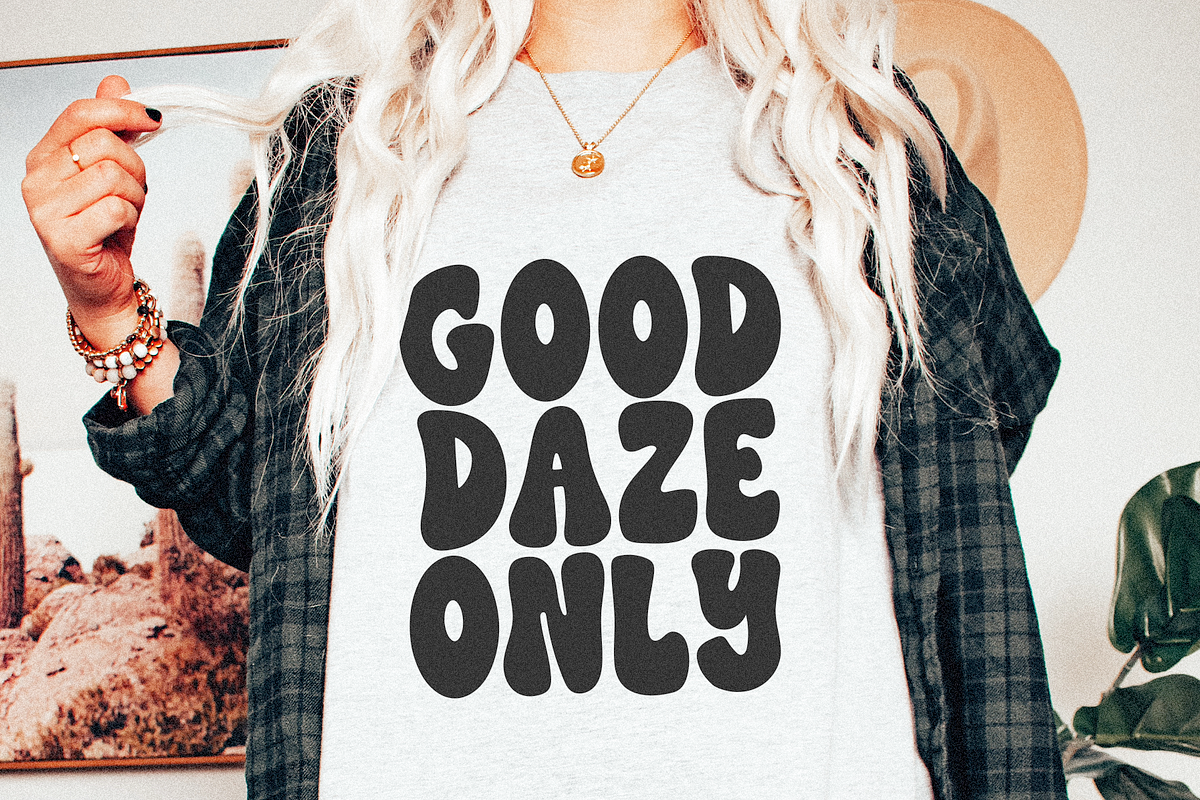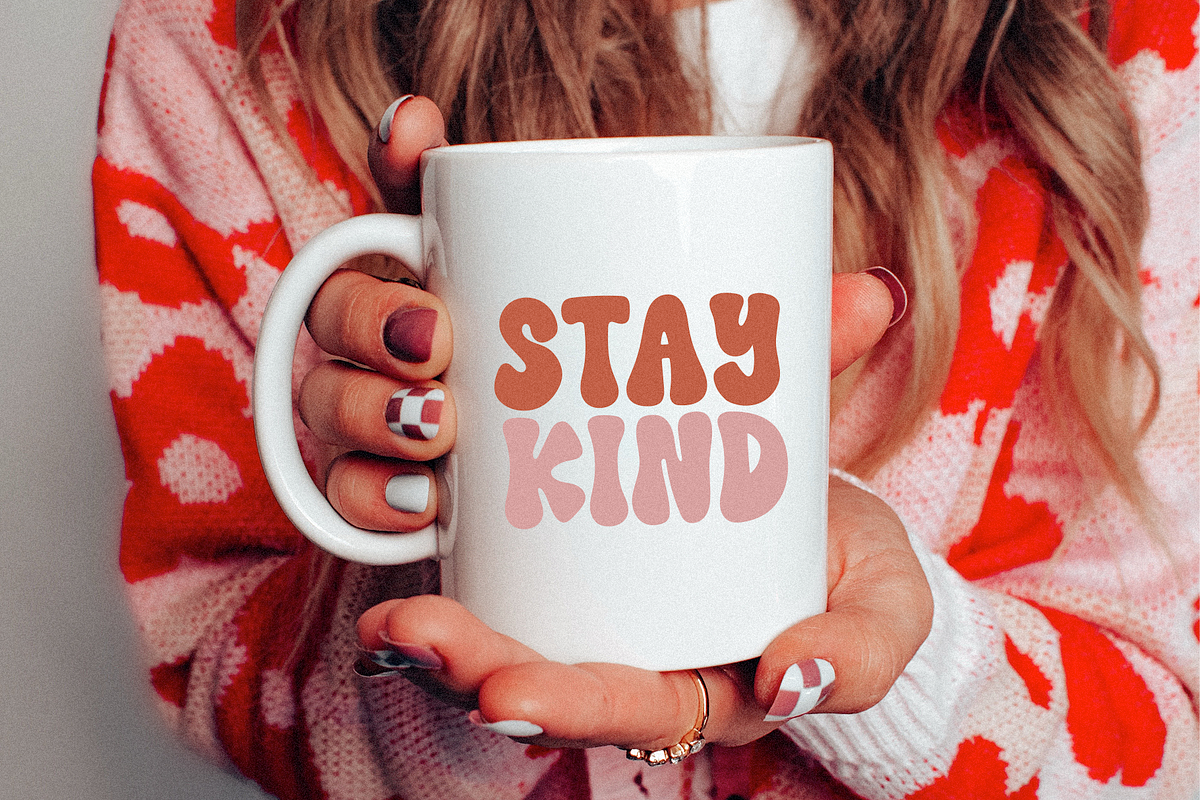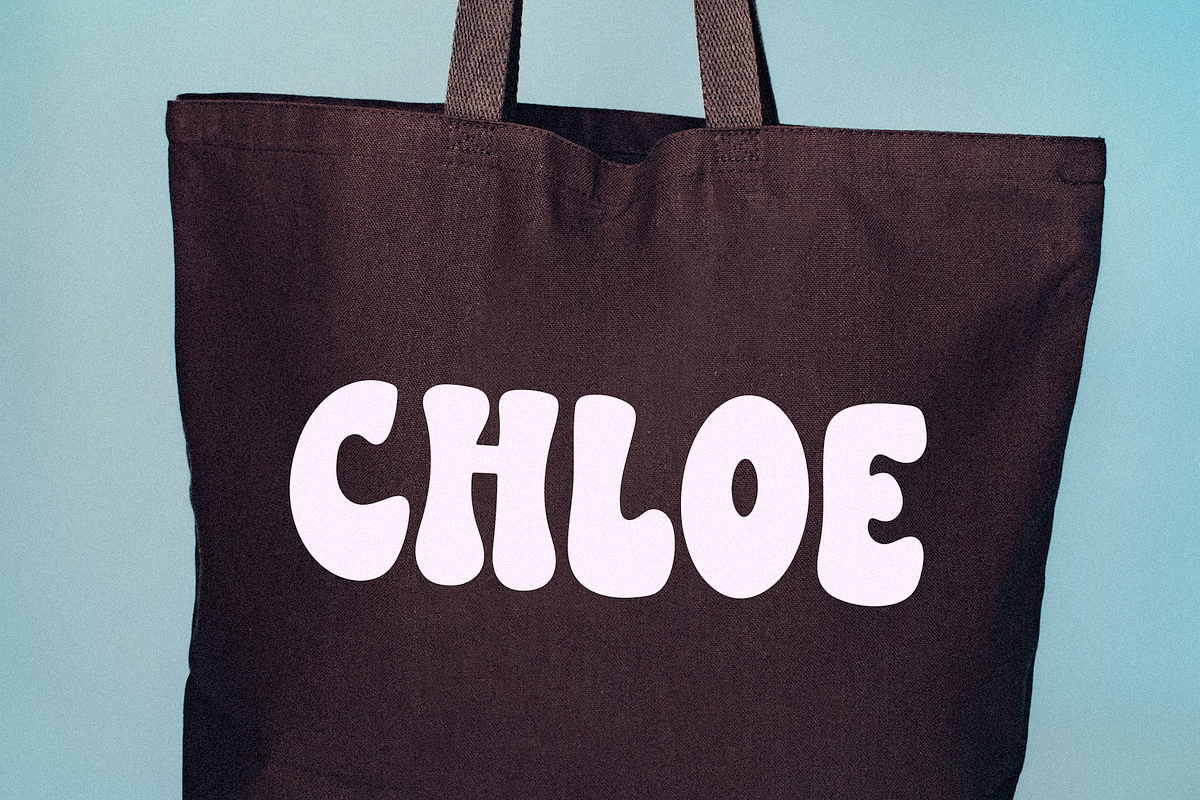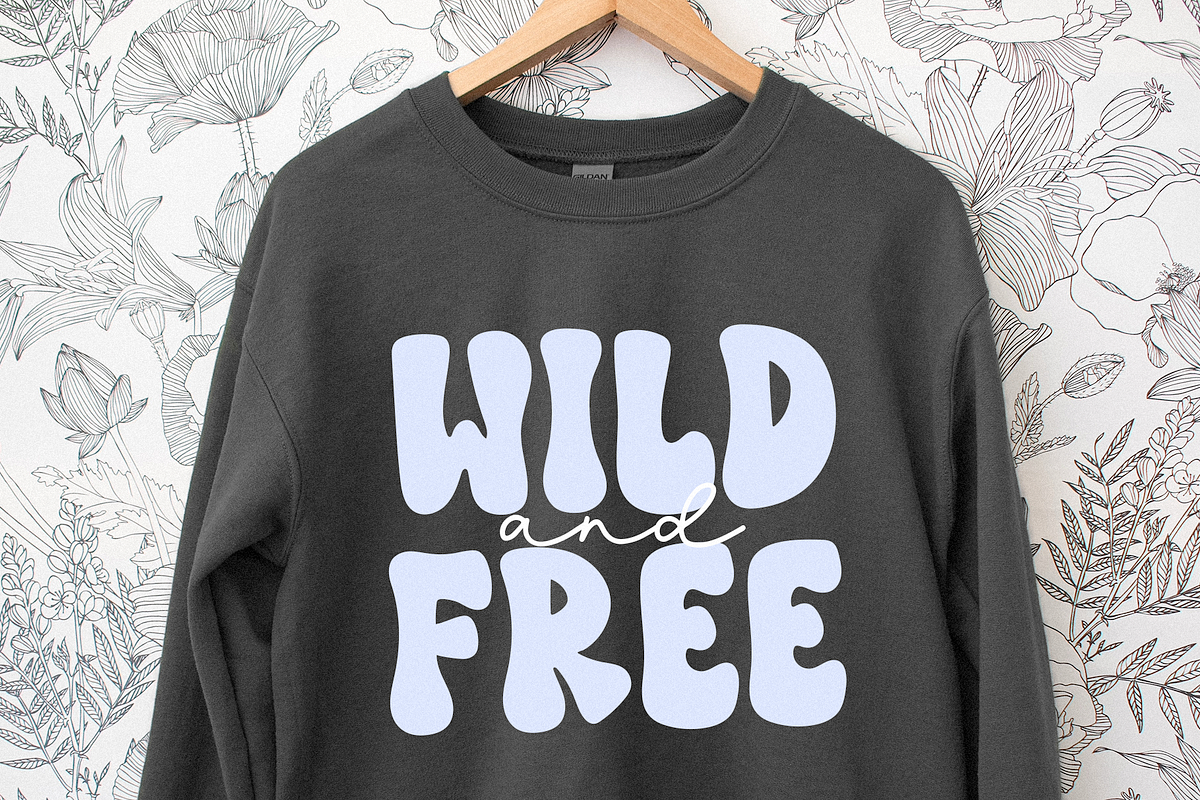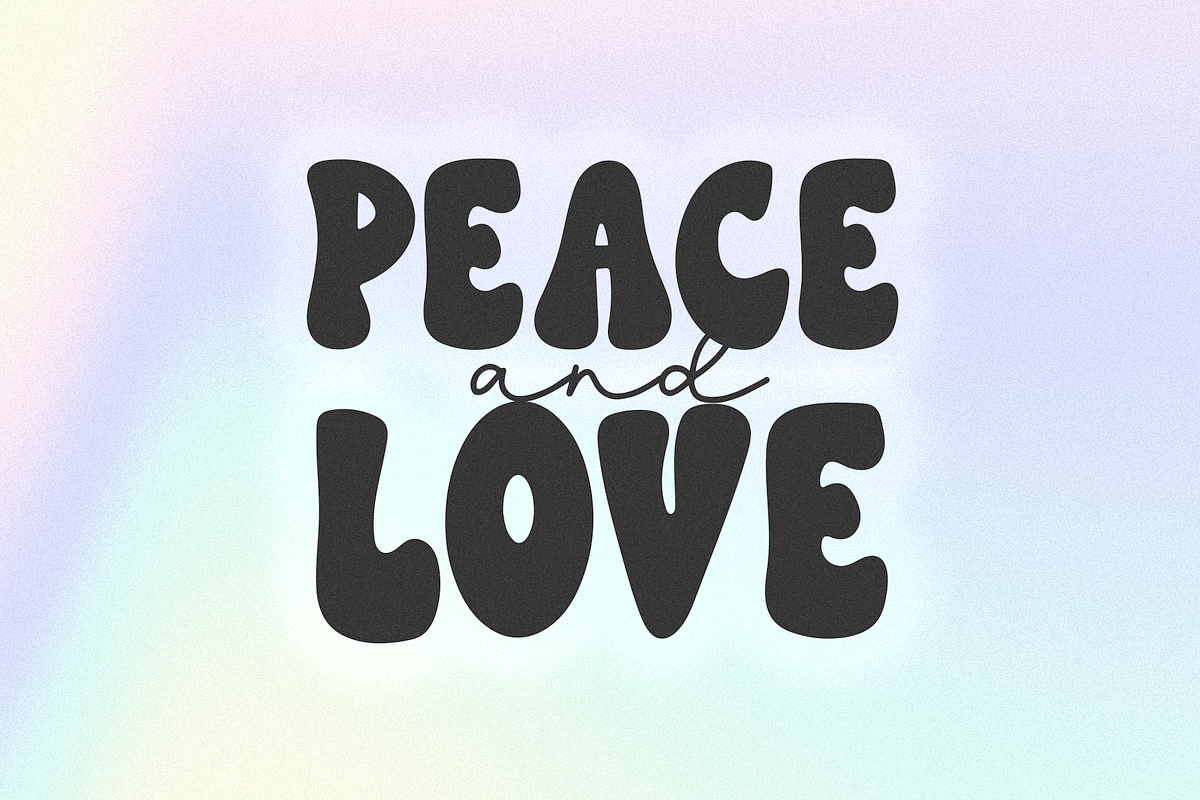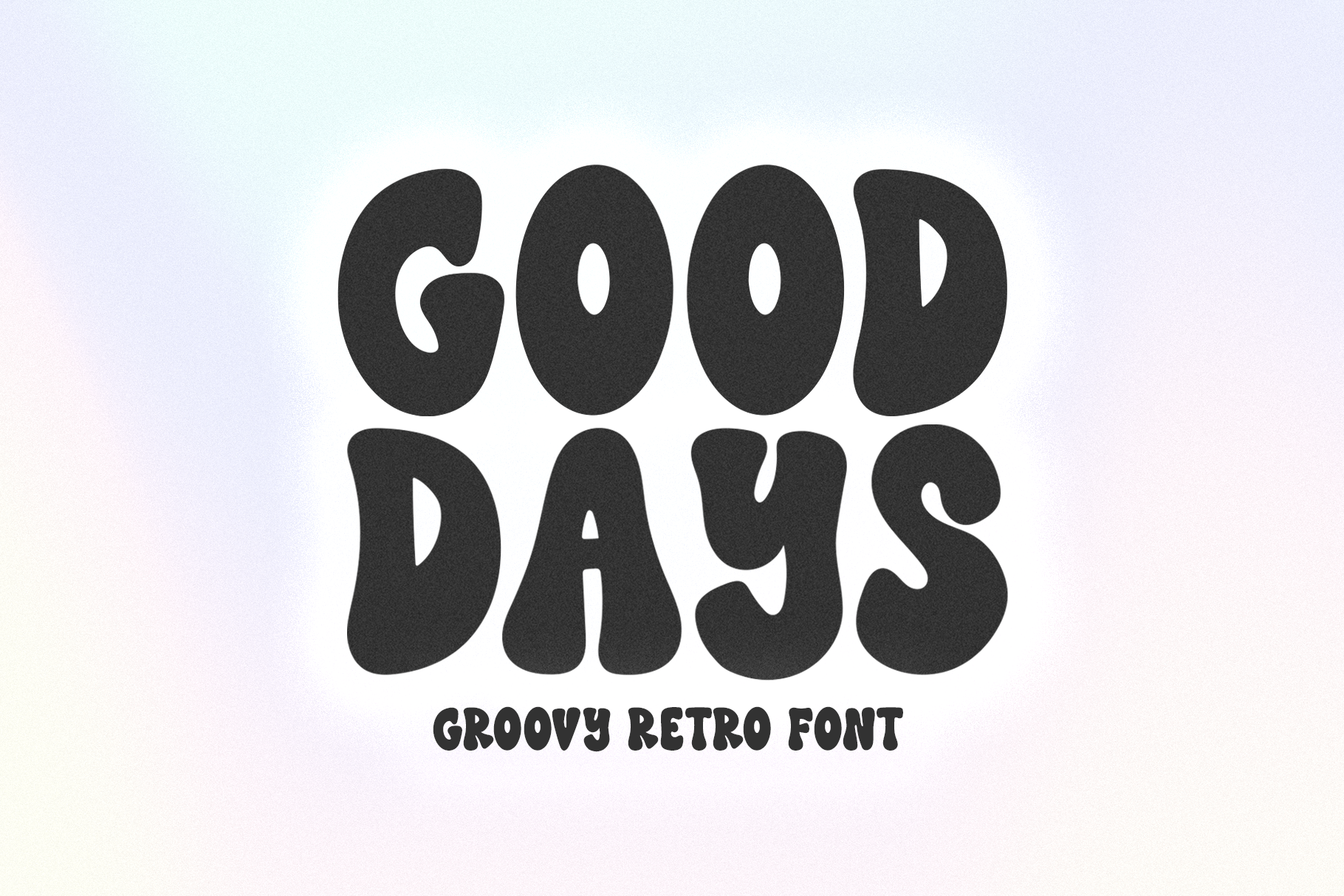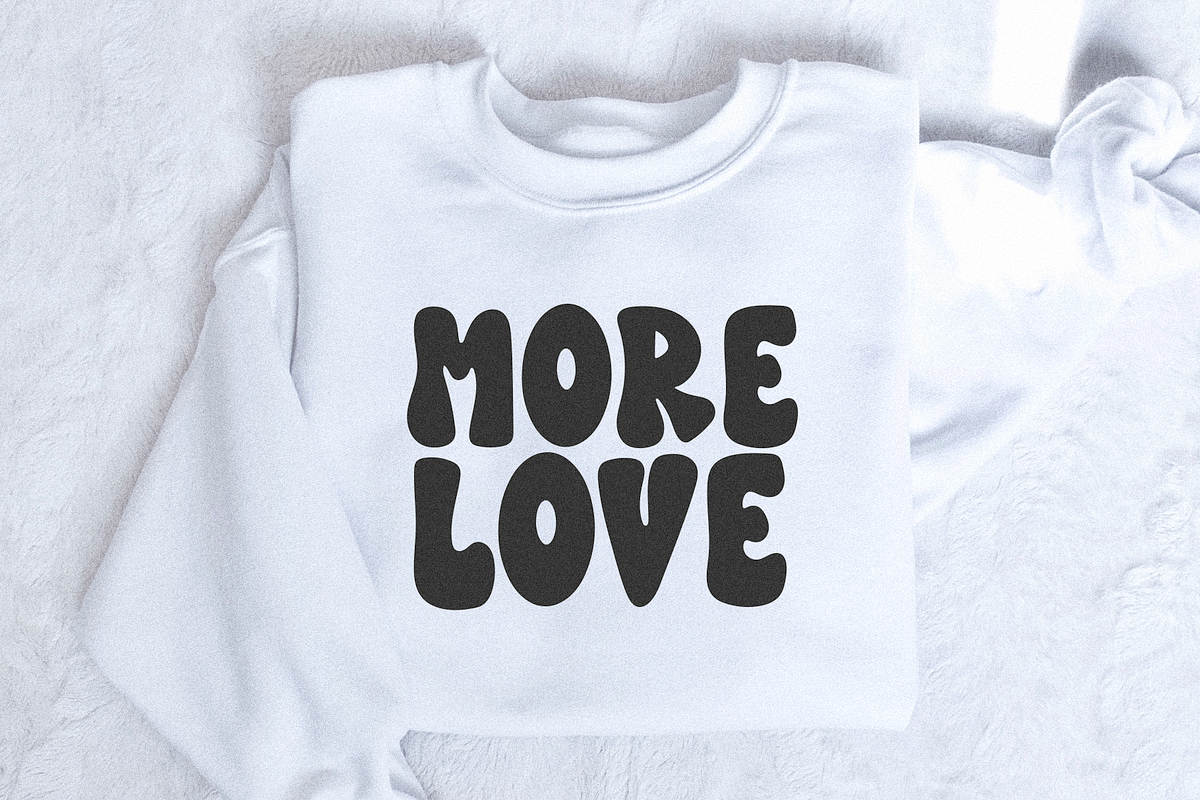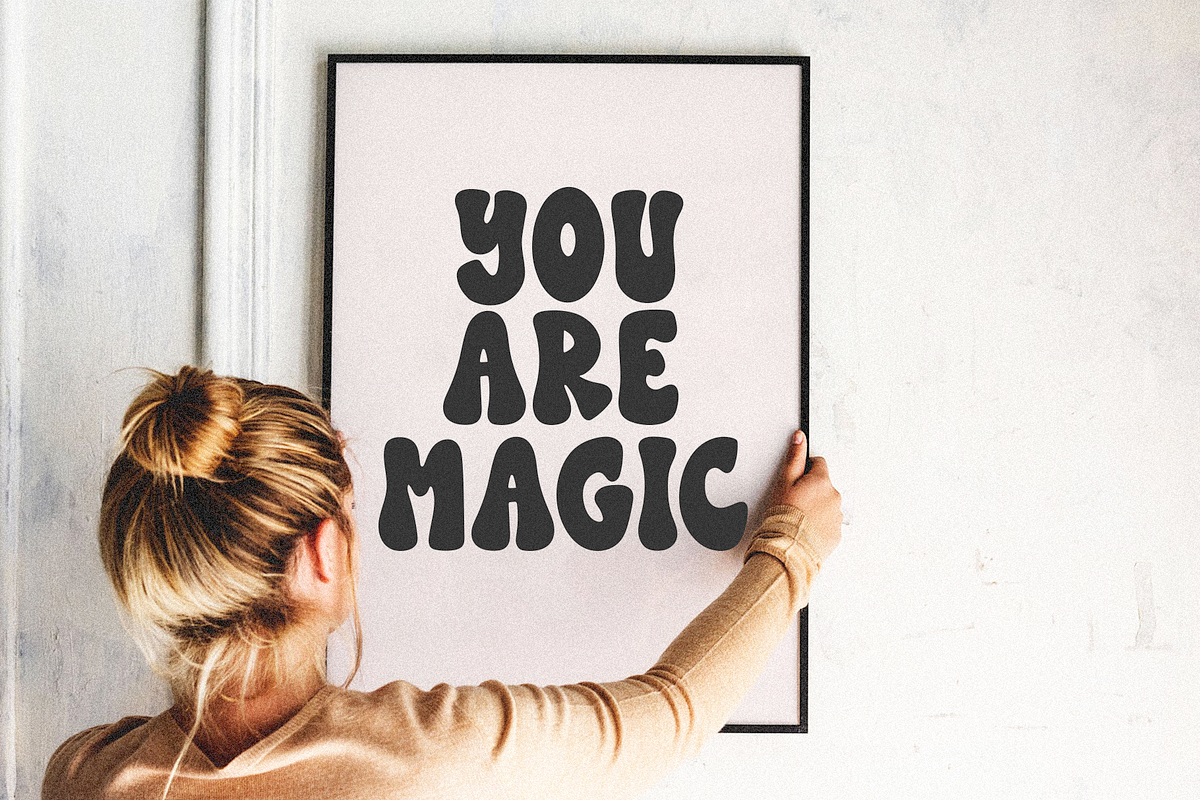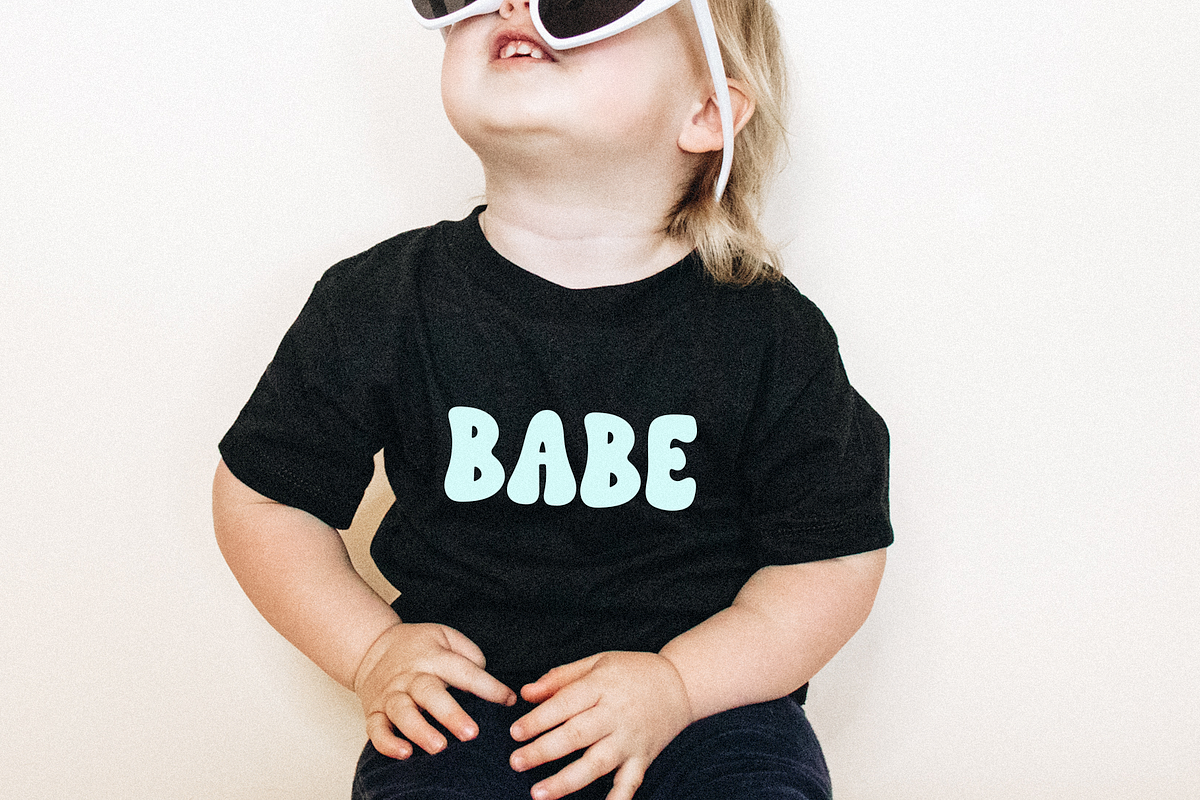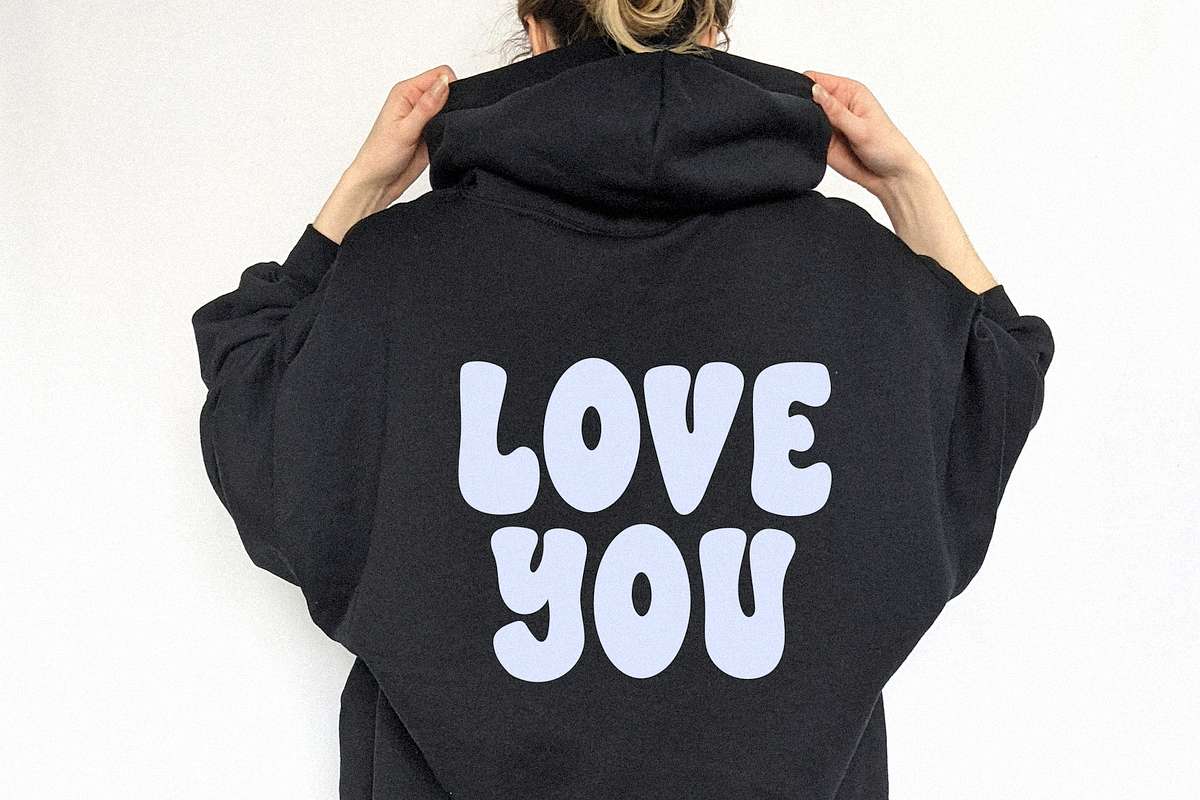
Good Days | Groovy Retro Font
Good Days is a hand-drawn font with big groovy letters!
This font is perfect for creating retro shirt designs, stickers, phone cases, doormats, instagram quotes, branding, logos and more!